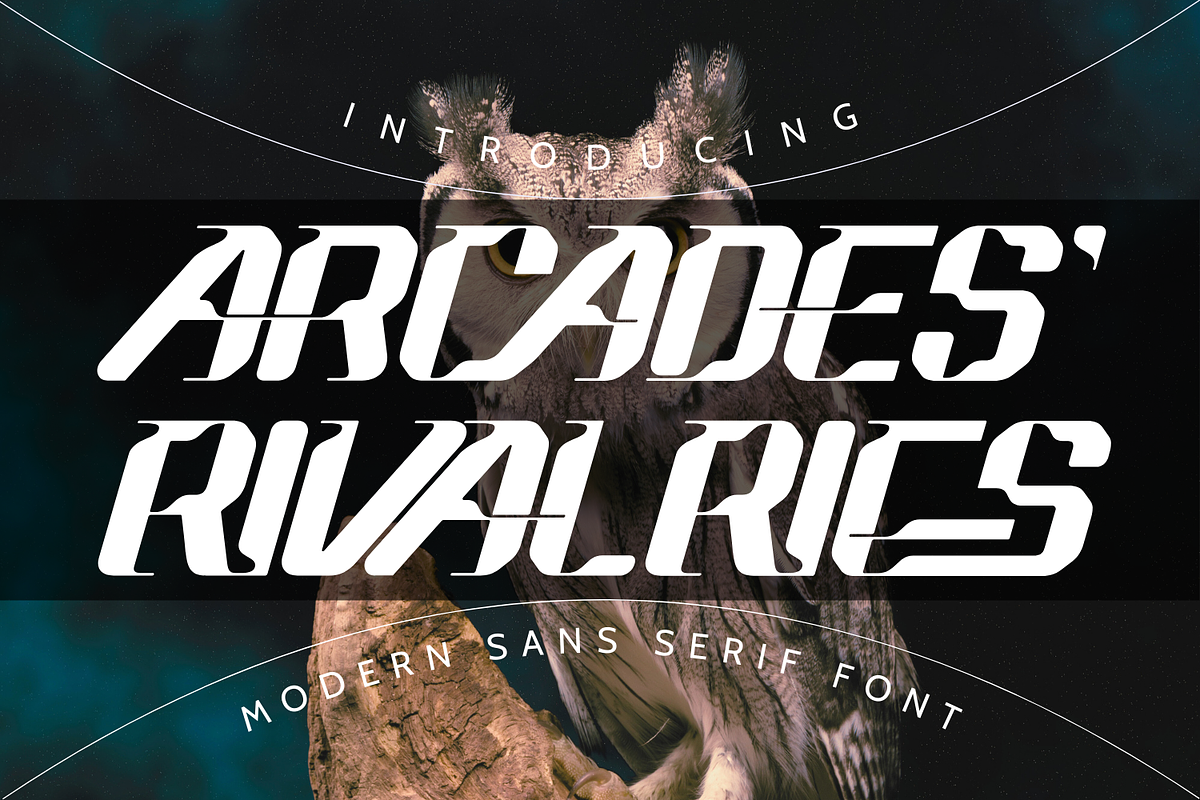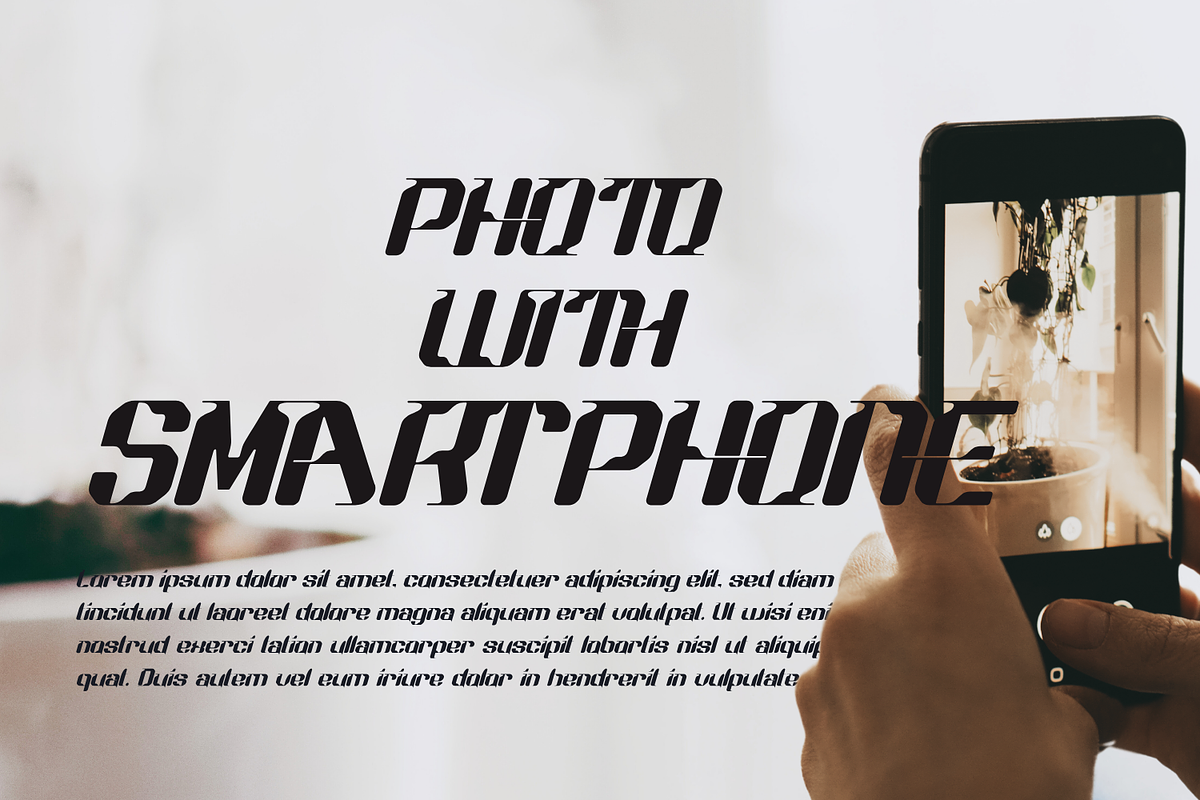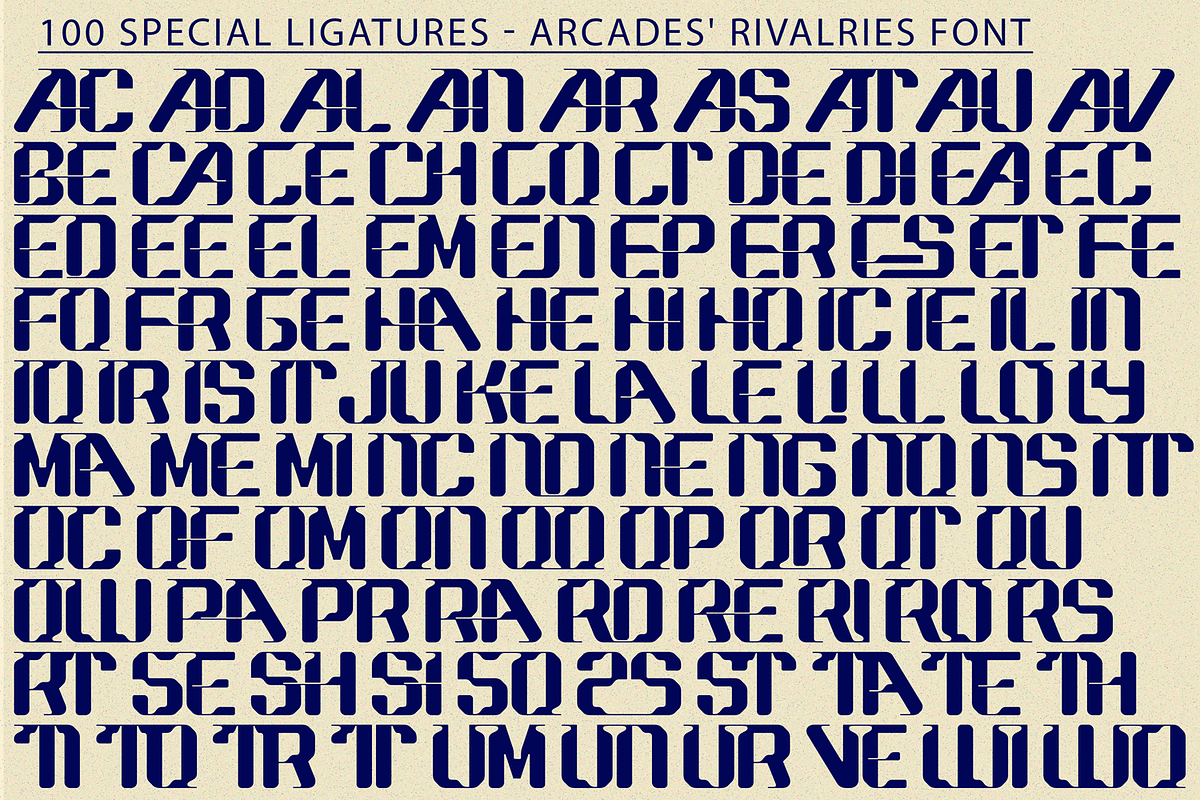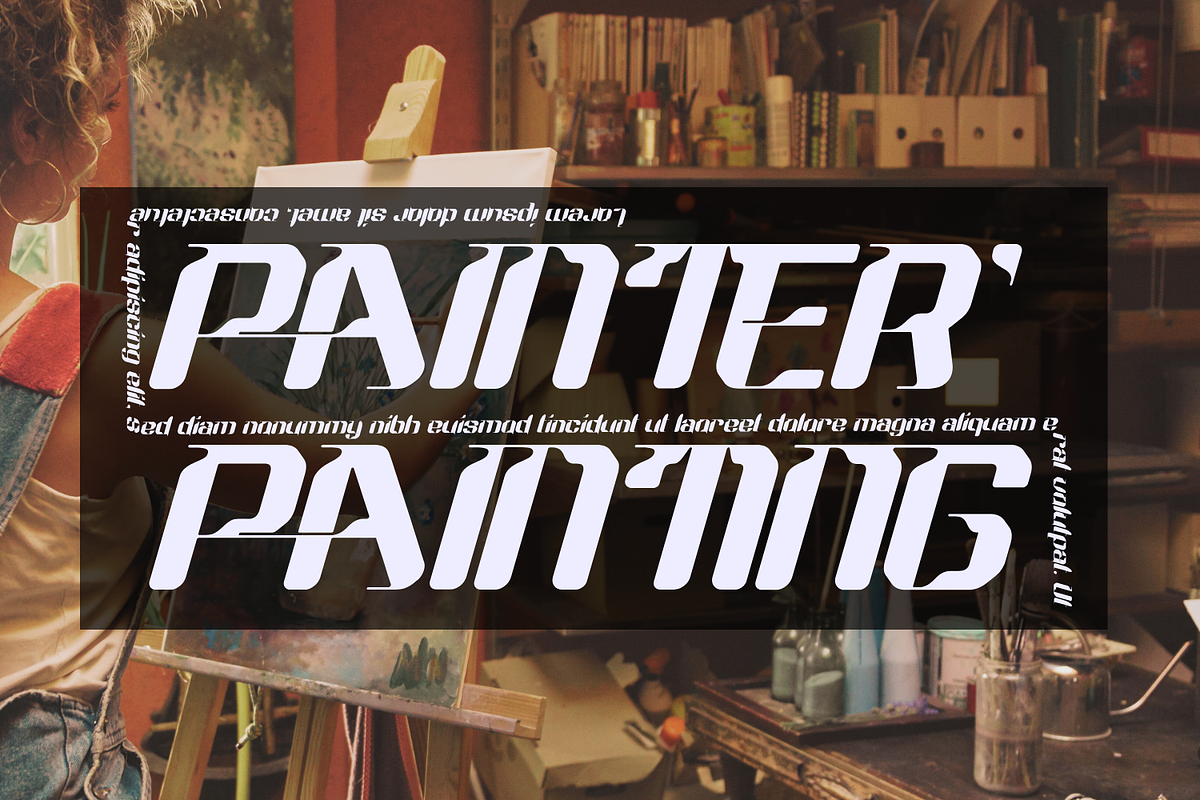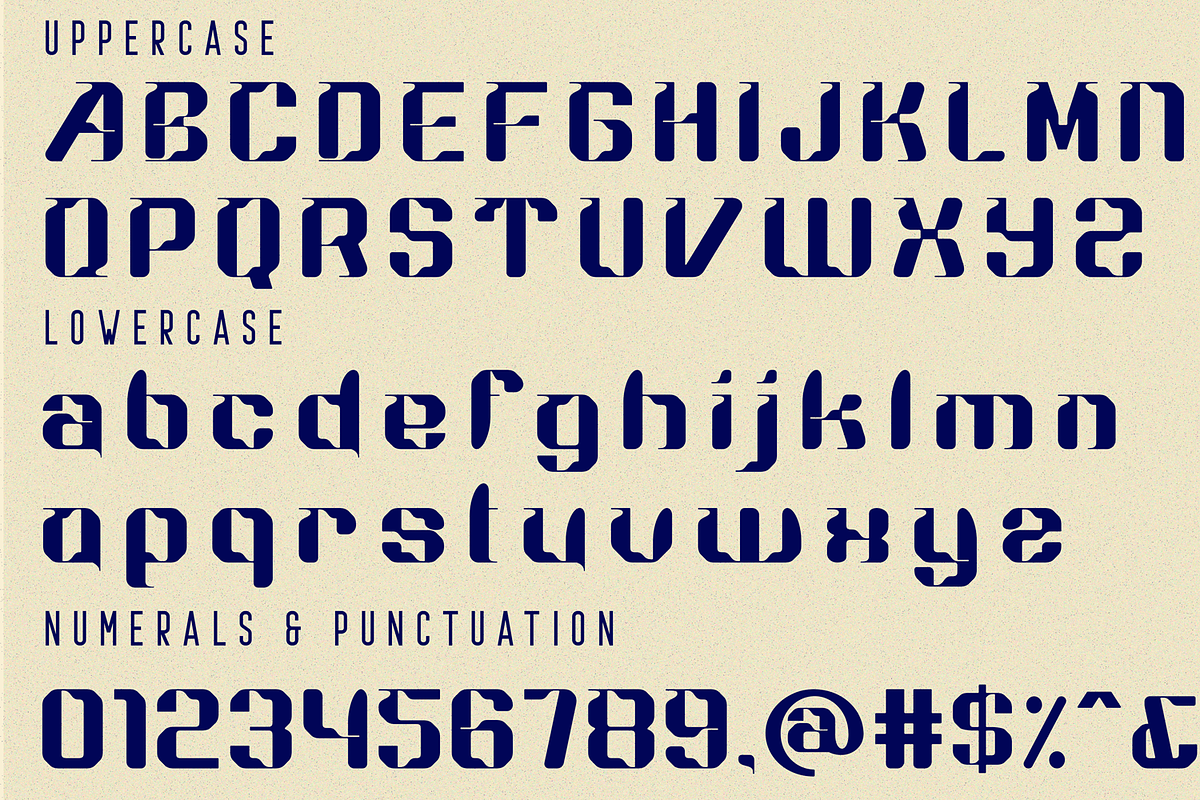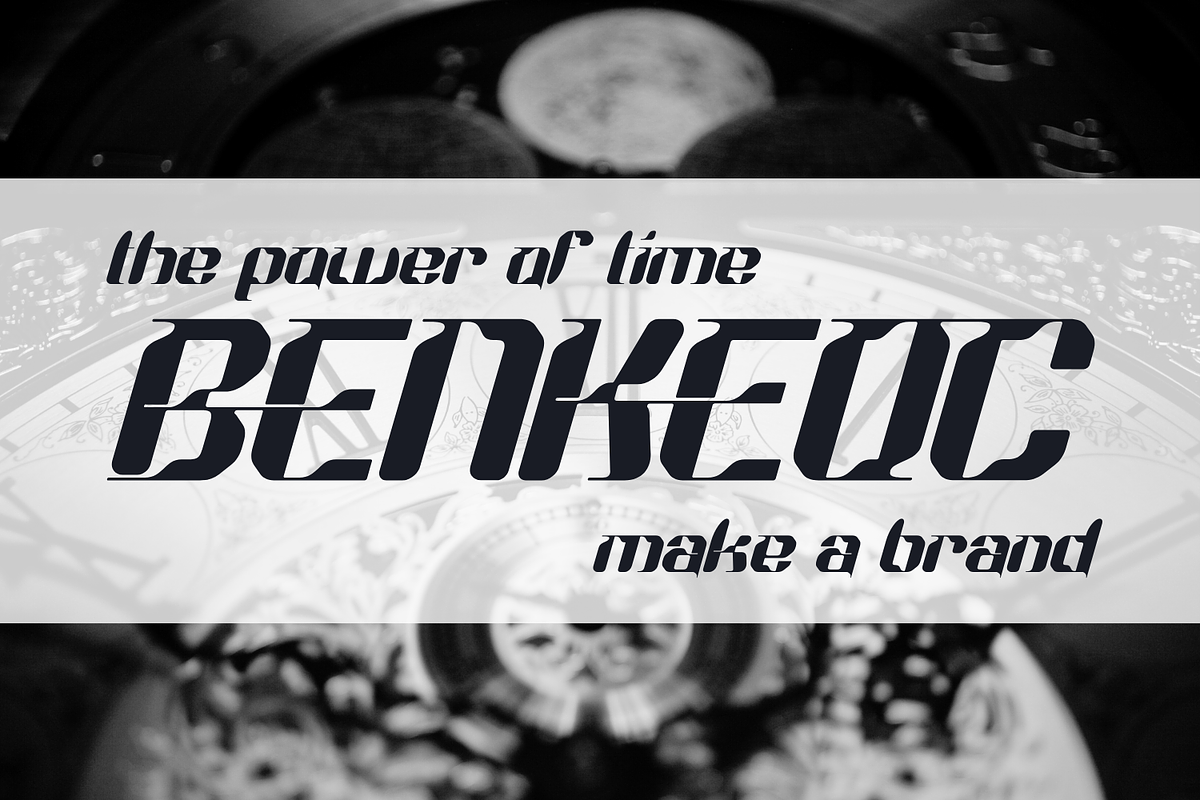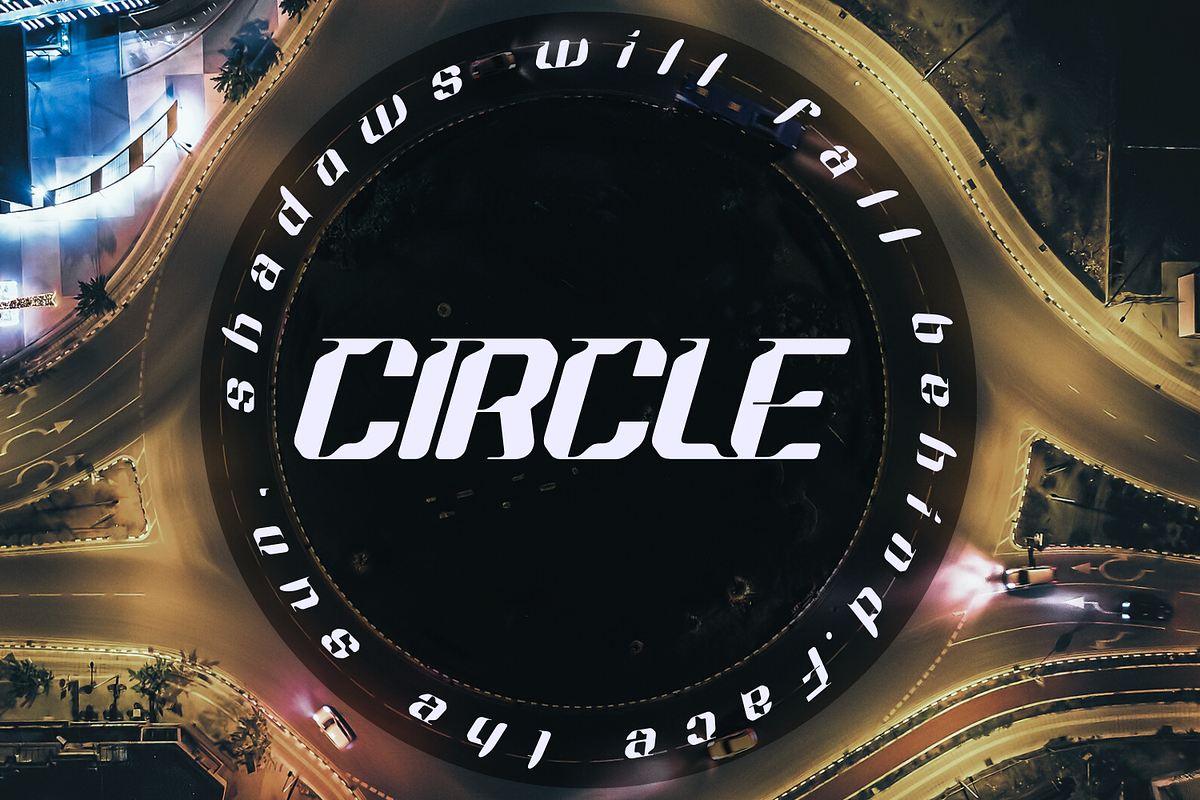
ARCADES' RIVALRIES - Futuristic Font
ARCADES' RIVALRIES FONT - Futuristic Sci-Fi Font. It's a hi-tech logo inspired font with unique and futuristic looks. With sans based, this font also including ligatures that you can use for more options for your logo project. You can use this font for logo, movie poster, and futuristic event, game / gaming industry, sport racing, super car brand, esport branding, music poster, website design, modern advertising design, poster quote, book/cover title, special events and any more.
ARCADES' RIVALRIES was built with OpenType features and includes 100 ligatures, alternate, numbers, punctuation, and it also supports other languages.
AC AD AL AN AR AS AT AU AV BE CA CE CH CO CT DE DI EA EC ED EE EL EM EN EP ER ES ET FE FO FR GE HA HE HI HO IE IC IL IN IO IR IS IT JU KE LA LE LI LL LO LY MA ME MI NC ND NE NG NO NT NS OC OF OM ON OO OP OR OT OU OW PA PR RA RD RE RI RO RS RT SE SH SI SO SS ST TA TE TH TI TO TR TT UM UN UR VE WI WO
- Special Ligatures